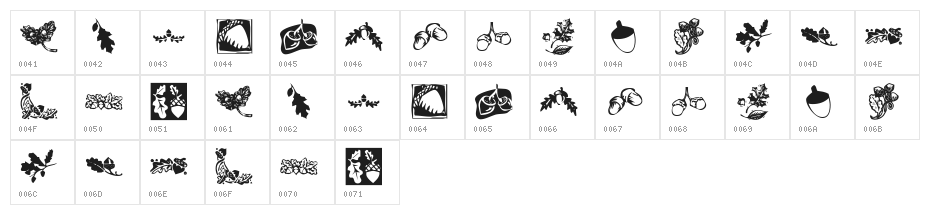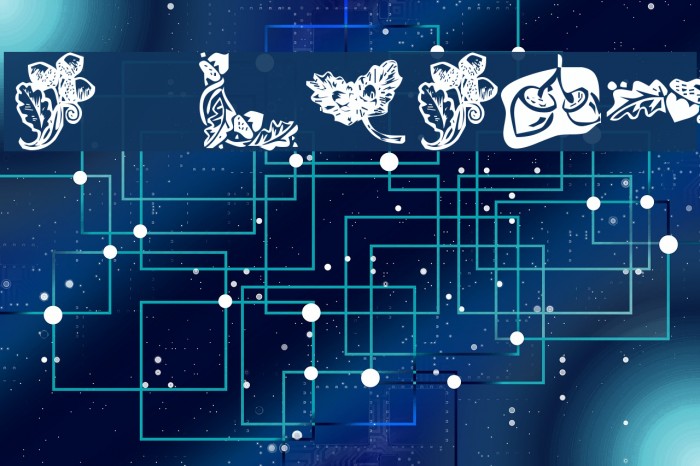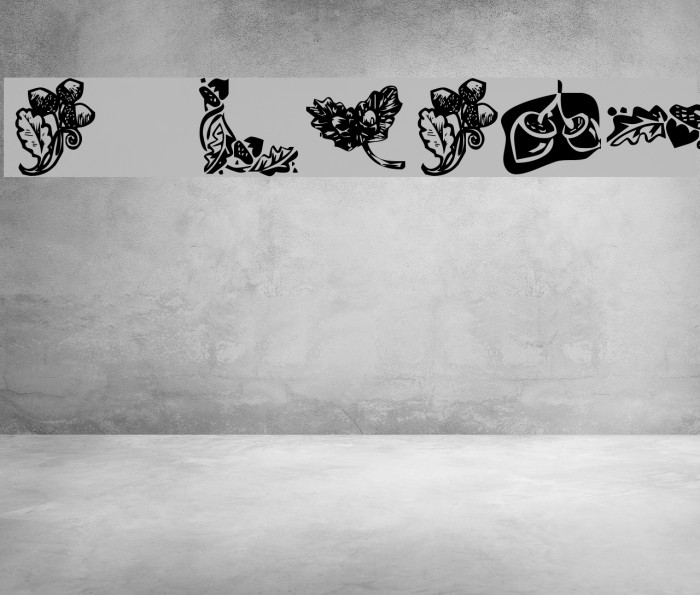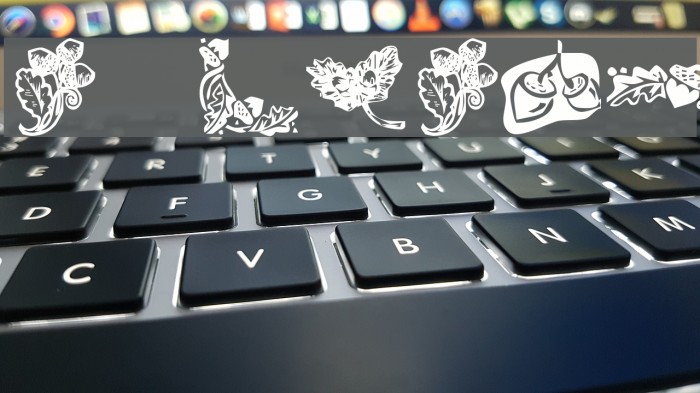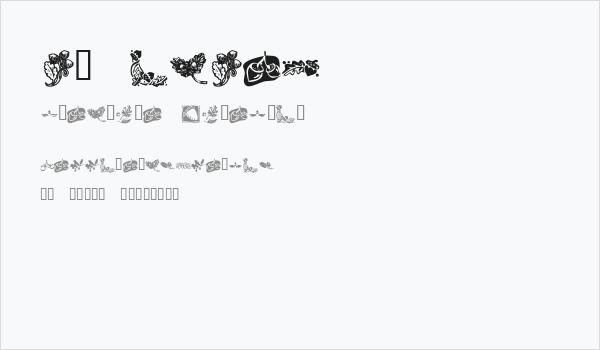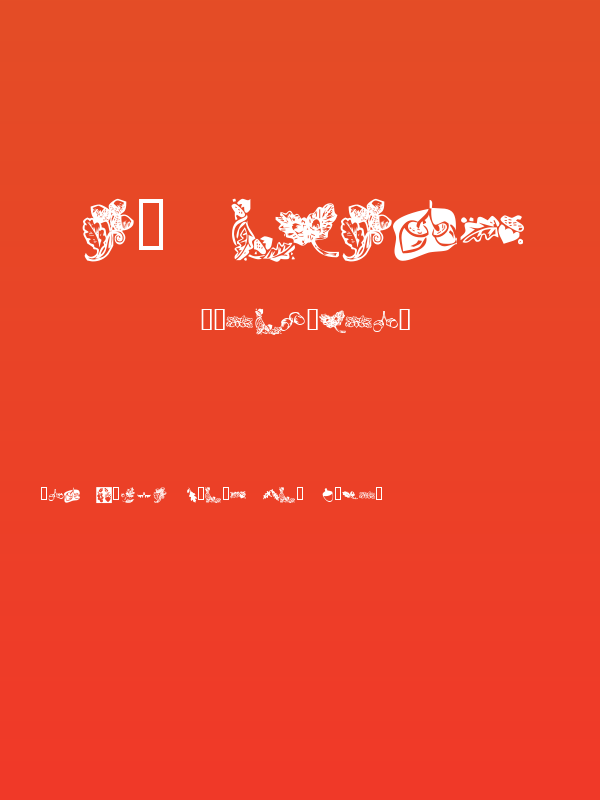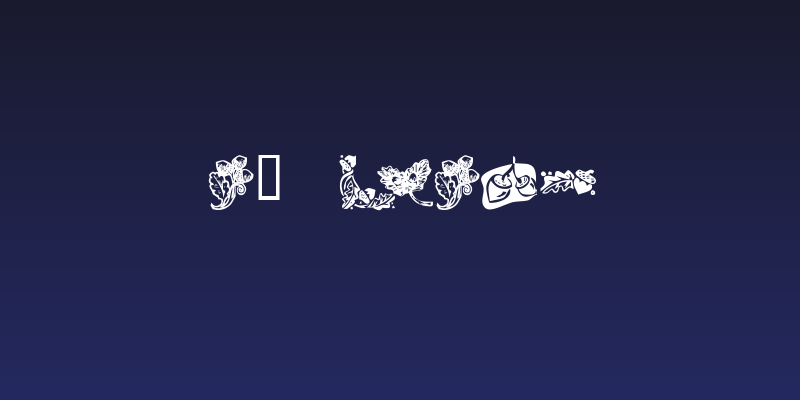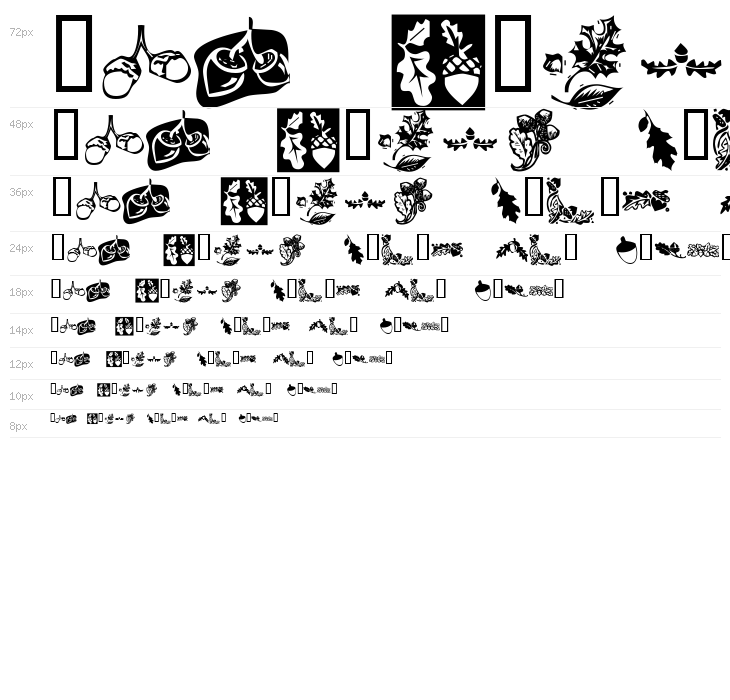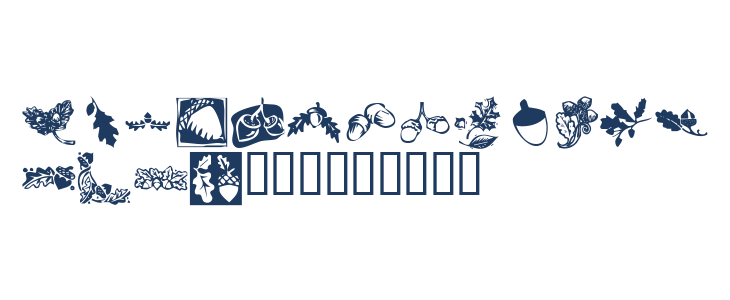
KR Oaken Font
KR Oaken Description
A decorative dingbat font featuring intricate autumn-themed illustrations such as leaves, acorns, nuts, and foliage, rendered in bold black and white with high contrast and detailed linework.
| Overall Style | Decorative, Nature-inspired |
| Use Case | Borders, embellishments, thematic accents |
| Proposed Projects | Seasonal invitations, scrapbooking, greeting cards, nature-themed posters, decorative borders. |